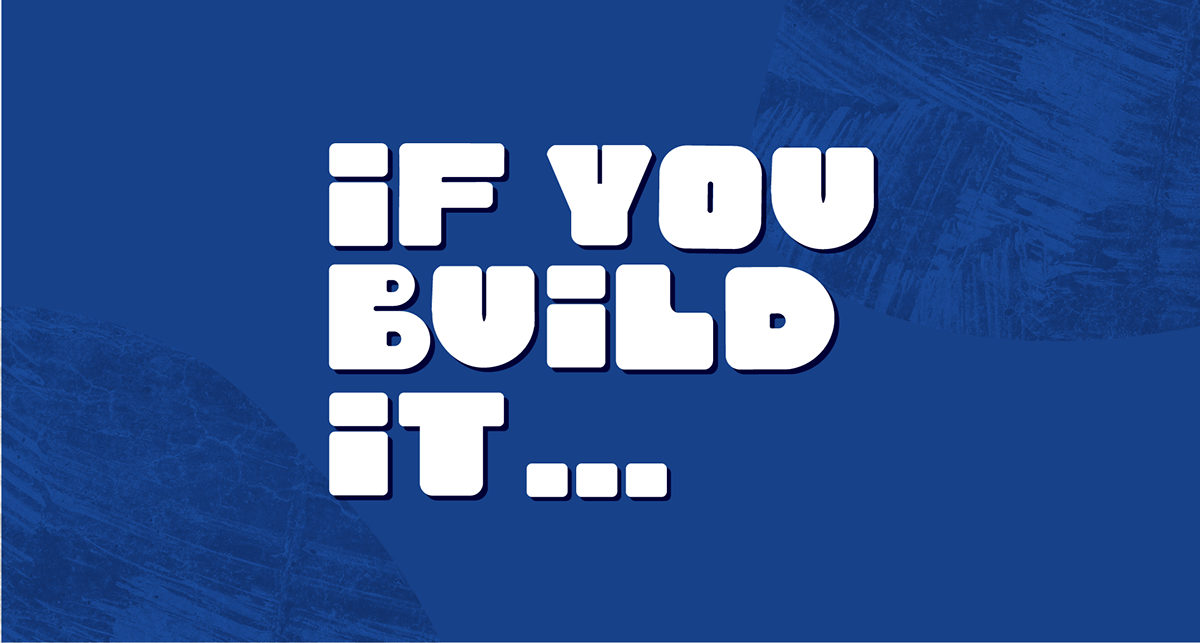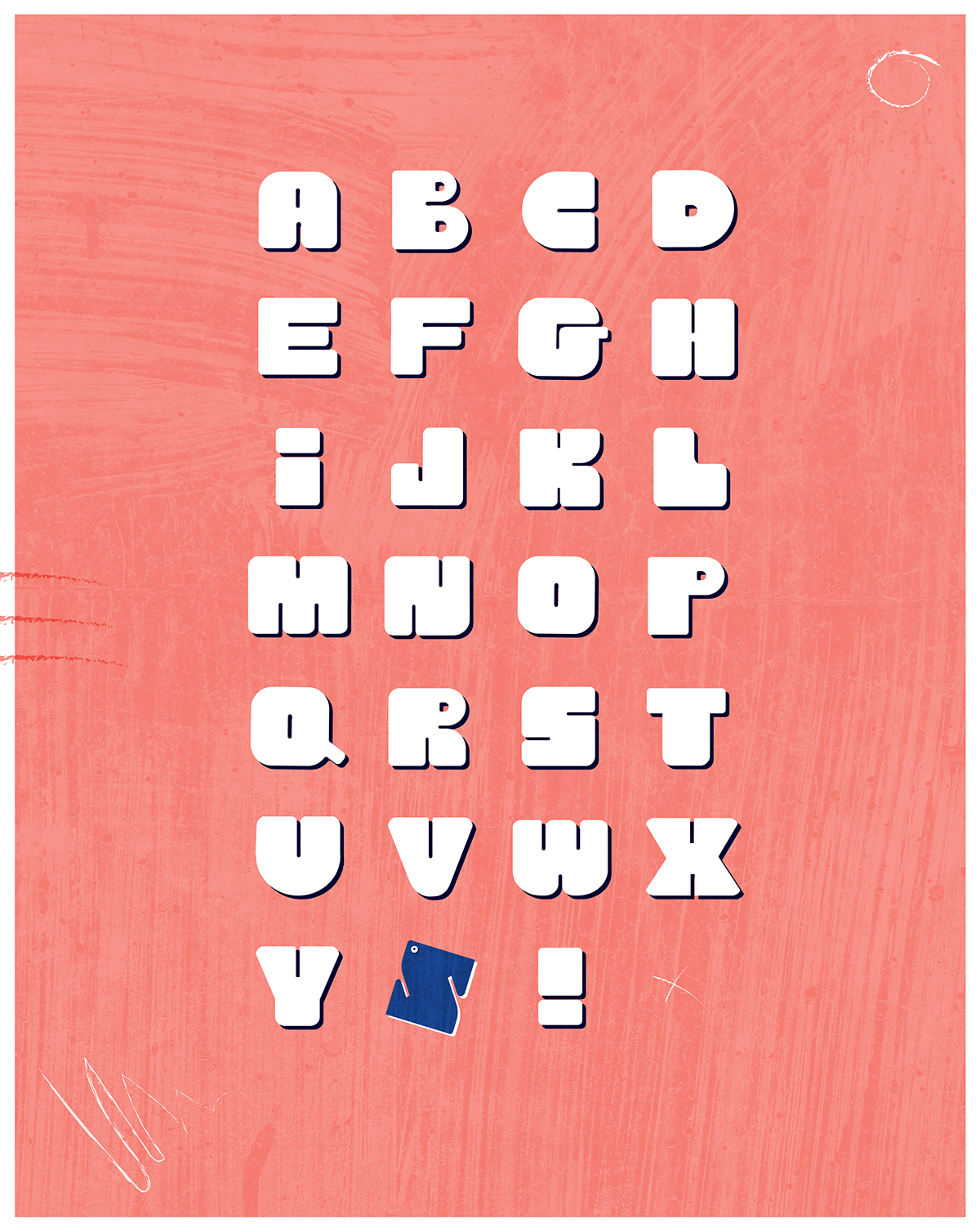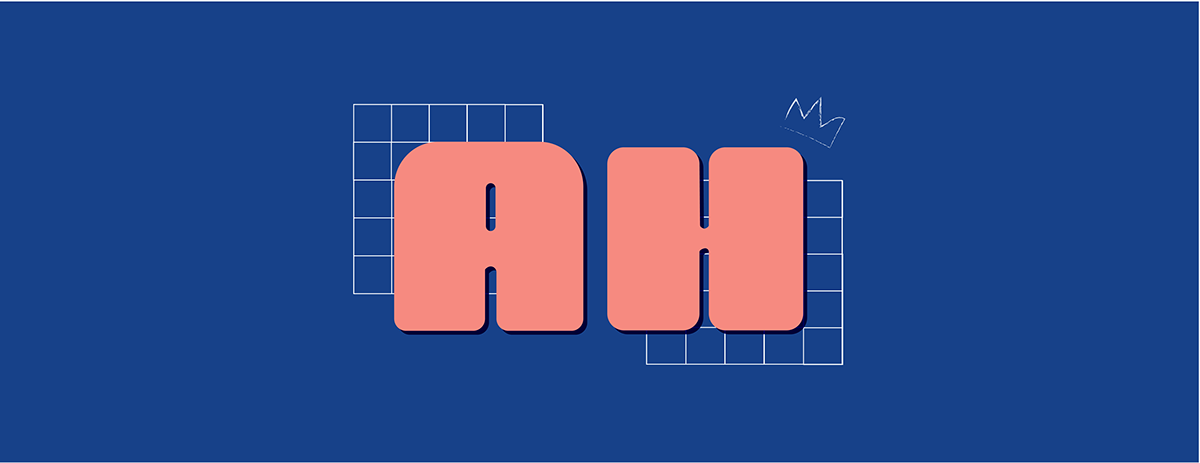
Graphic Urban Font for personal Projects
Created for Graphic Design Project inspired by iconics font from New York and especially the Bronx.
Looks like graffiti to make strong impact in poster or digital supports.